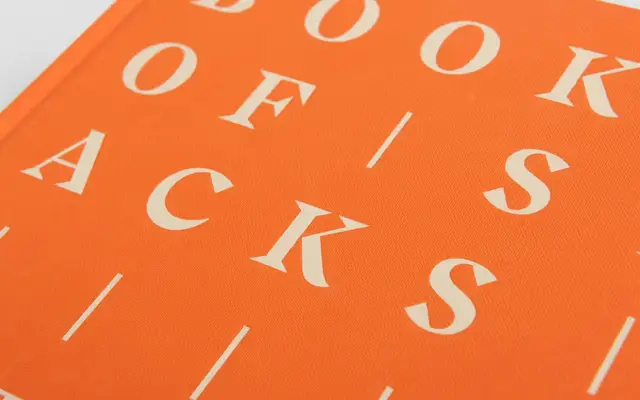
A calligraphically inspired serif family from Luzi Type, split into Display and Text subfamilies across six weights with variable font support.
Drawing on a calligraphic principle, Beirut pairs strong stroke contrast with distinctive letterforms suited to both large titles and continuous reading. The family divides cleanly between a Display cut for bold headlines and a Text cut optimised for smaller sizes, each running from Light to Black with matching italics. Variable font versions are included in the family package, covering a Light to Black axis for both desktop and web deployment.
Beirut is described as based on a calligraphic principle with strong shapes and contrasting stroke elements, placing it in the calligraphic or pen-derived serif tradition rather than a classical or transitional model.